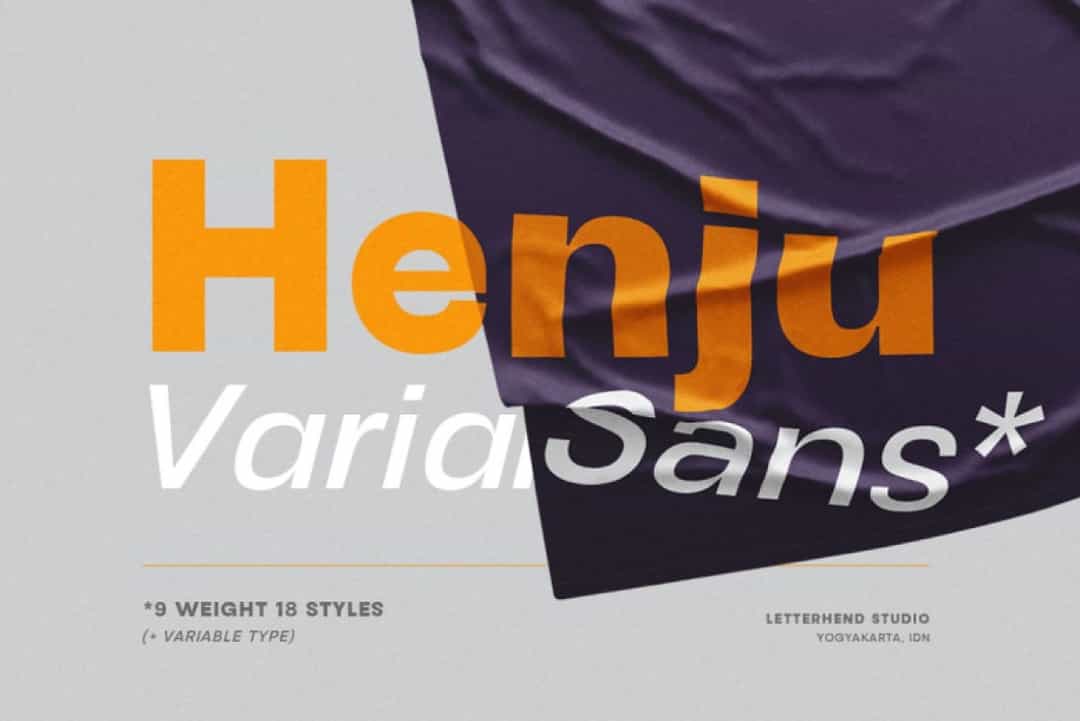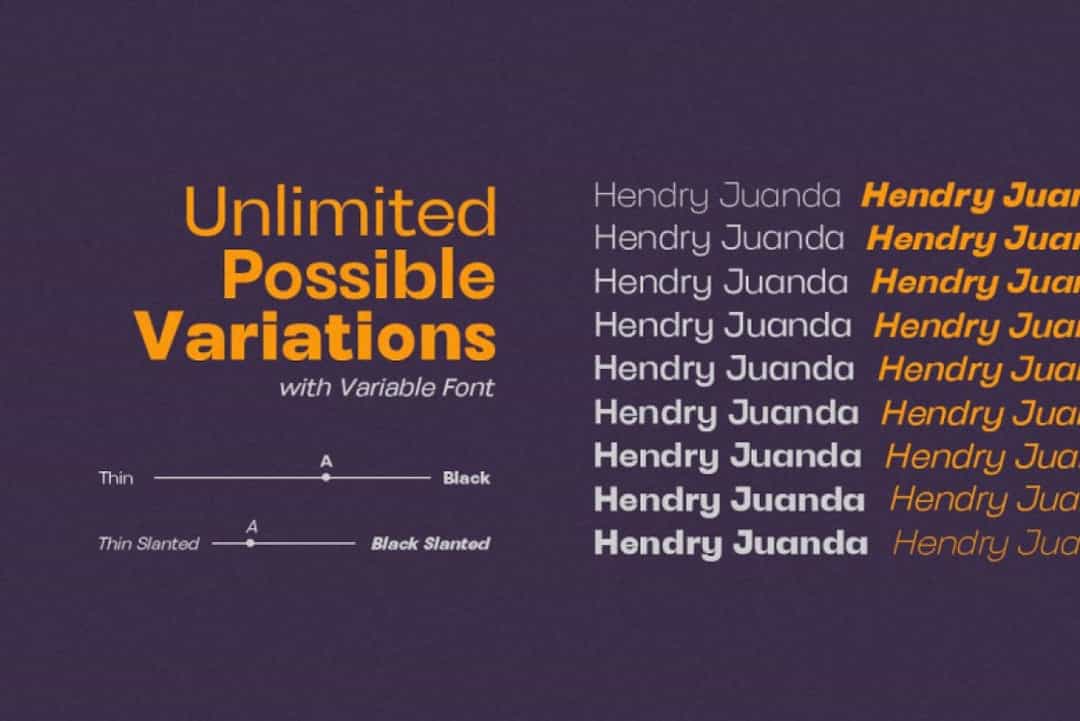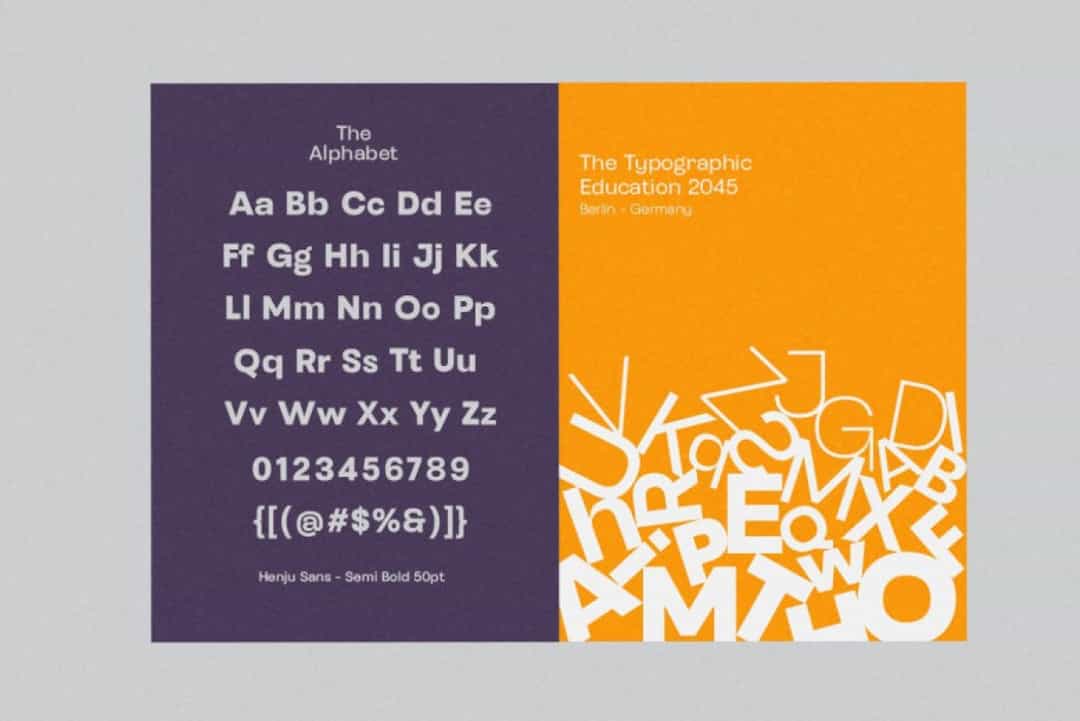
Henju Sans is our inaugural sans serif variable font and allows users to design an individual weight and width independent from font files available. It was intended to be easy to use for reading purposes with its simplistic designs and superb reading experience.